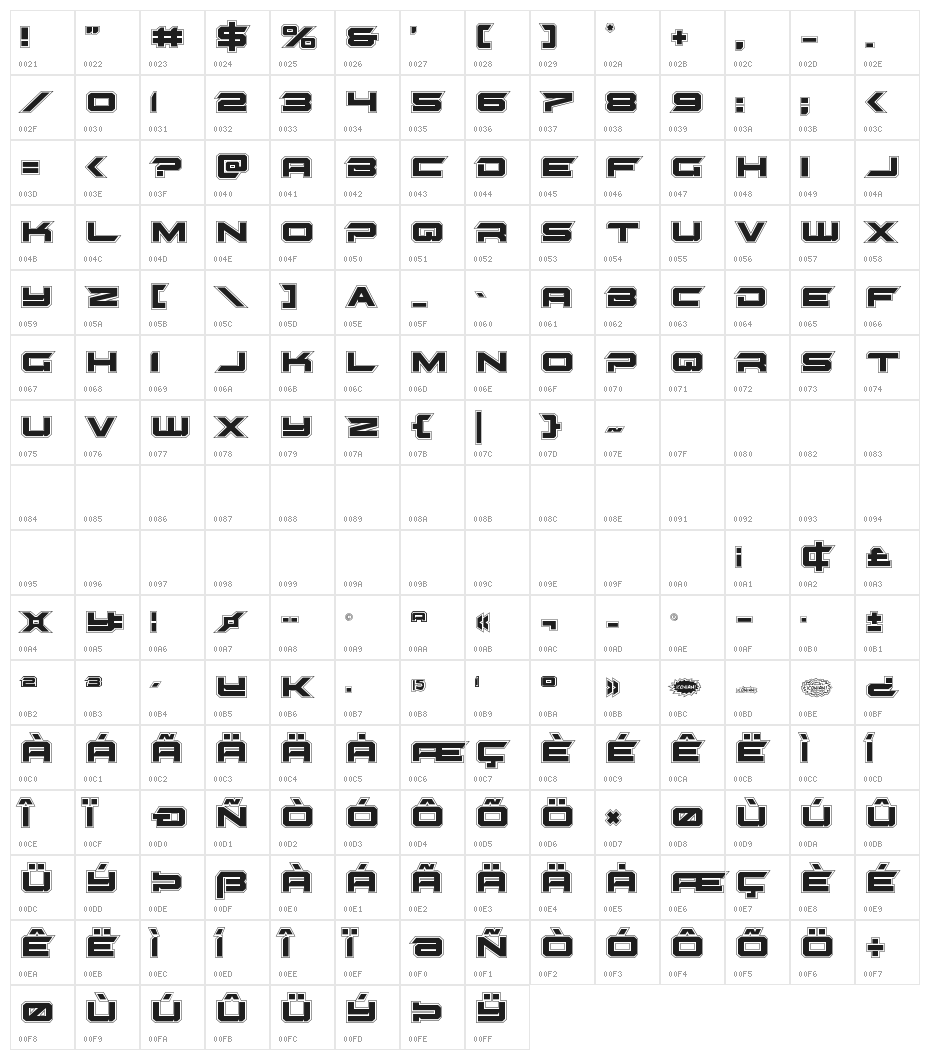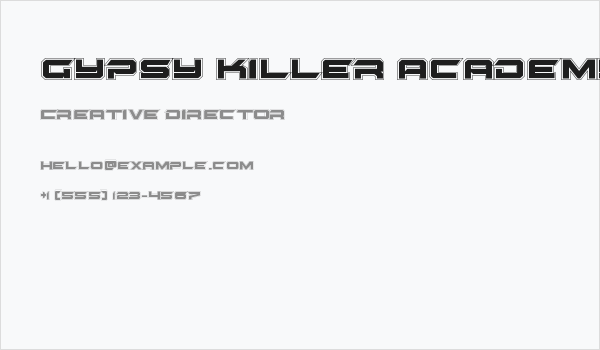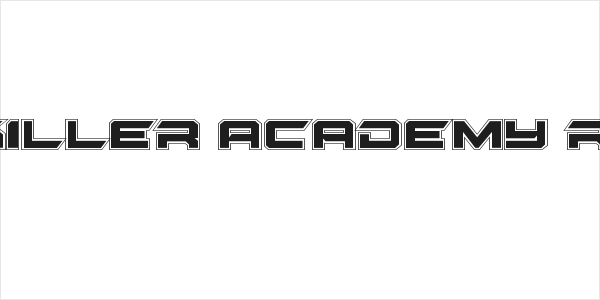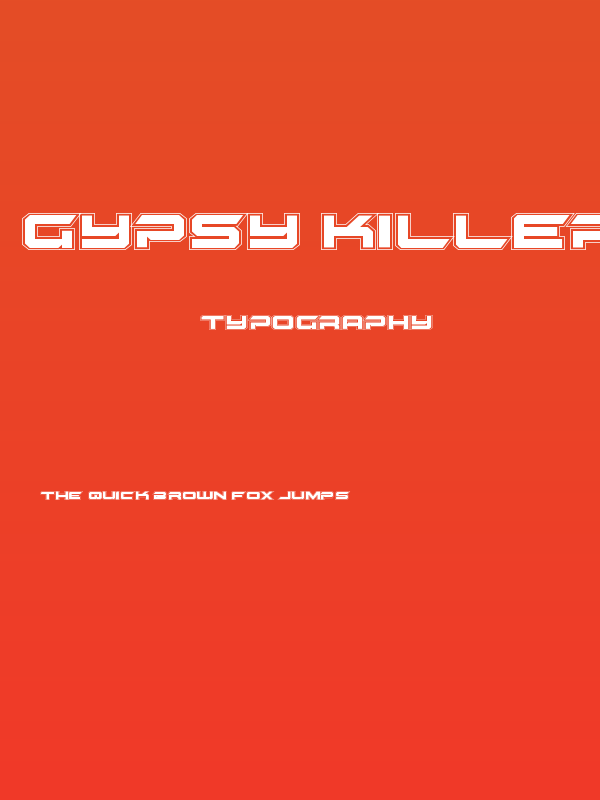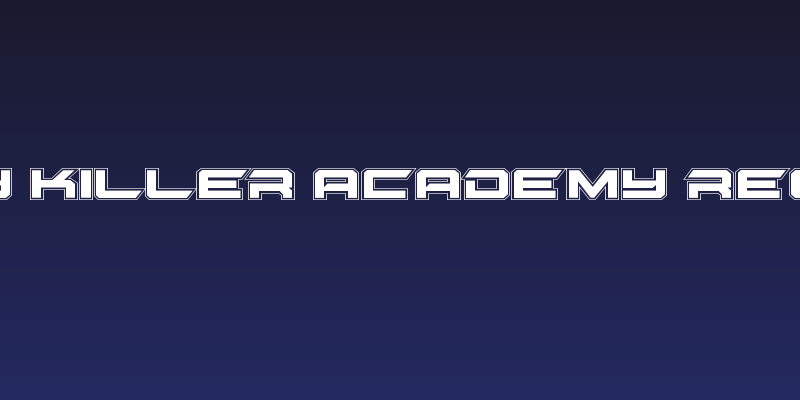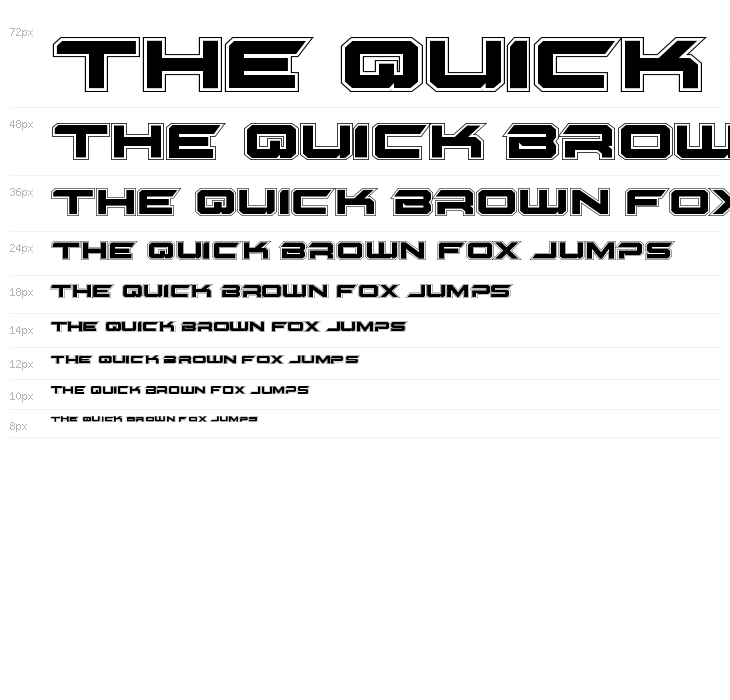
Gypsy Killer Academy Regular Font
Gypsy Killer Academy Regular Description
This font features a bold, geometric design with a strong presence. The characters are outlined with a thick border, giving them a three-dimensional appearance. The style is modern and futuristic, with sharp angles and clean lines. The uppercase and lowercase letters maintain a consistent width, creating a uniform look. Numbers and special characters are designed to match the boldness of the alphabet, ensuring a cohesive appearance across all text. The font's unique style makes it stand out, ideal for projects that require a striking and memorable visual impact.